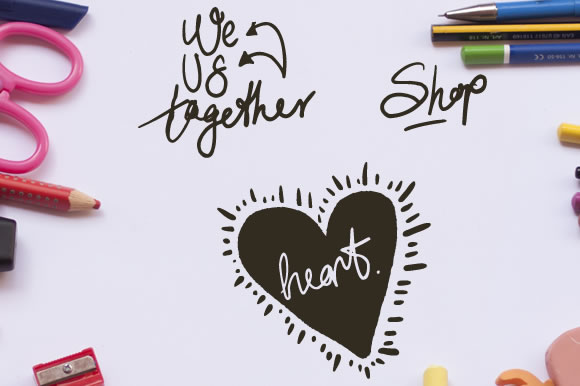
The Quest for the Perfect Quote Font: Enter And I Quote
I’ll never forget the time I was working on a client project, tasked with creating a visually stunning quote graphic. I had the perfect design concept, but I was struggling to find a font that would bring it all together. That’s when I stumbled upon And I Quote, a beautiful handcrafted font created by Creativeqube. ✨ It was love at first sight!
An Honest Review of And I Quote
- ✨ Elegant and sophisticated design that’s perfect for quotes, sayings, and phrases
- 🎨 Beautifully crafted with attention to detail, making it perfect for creative projects
- 👍 Great for both digital and print applications
While And I Quote is an amazing font, there are a few things to keep in mind: 🤔
- ⚠️ Some users may find the font a bit too ornate for certain projects
And I Quote was designed with inspiration from classic typography and elegant script fonts. The font’s creator, Creativeqube, aimed to create a beautiful and highly legible font that’s perfect for creative projects. 💡
Q: What type of projects is And I Quote best suited for?
A: And I Quote is perfect for creative projects, such as quote graphics, social media posts, and presentations.
Q: Is And I Quote available in multiple languages?
A: Yes, And I Quote supports multiple languages, making it a great choice for international projects.
Q: Can I use And I Quote with OpenType features?
A: Yes, And I Quote supports OpenType features, such as ligatures and stylistic alternates, making it perfect for creative and custom designs.